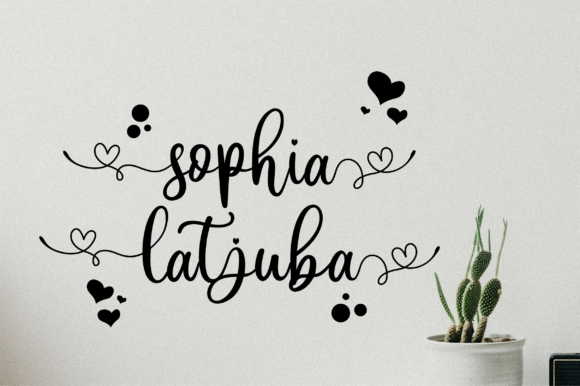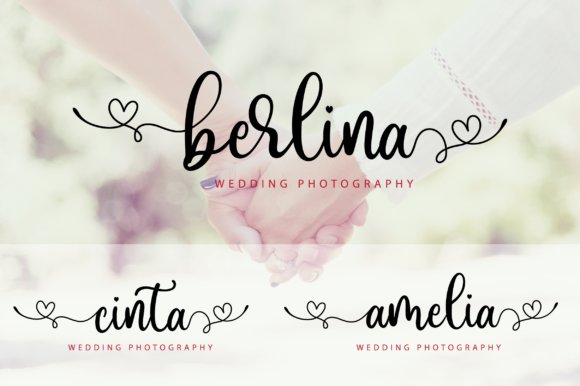
Juliette Font
db-ku.com - Script & Handwritten -- Juliette features gorgeous swashes and alternates that make this fun script a true must-have! Ignite your creativity with its fun and friendly vibe, and experiment with the many font results it allows you to create.